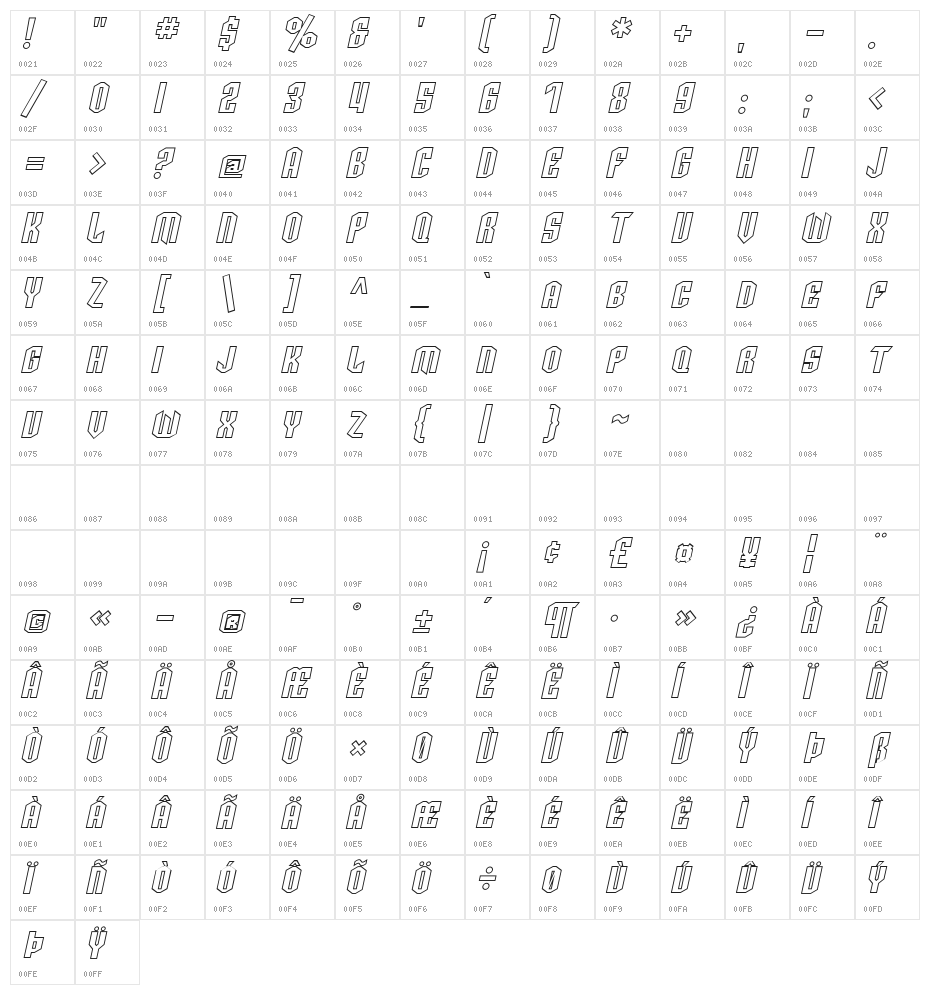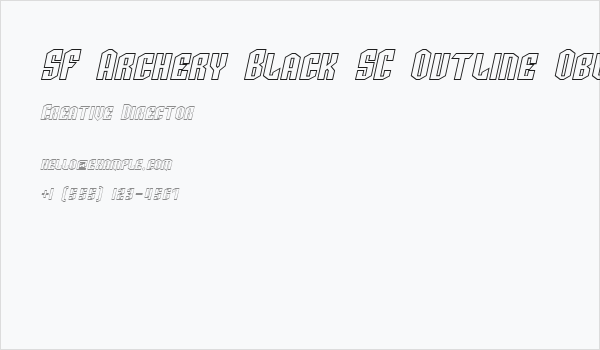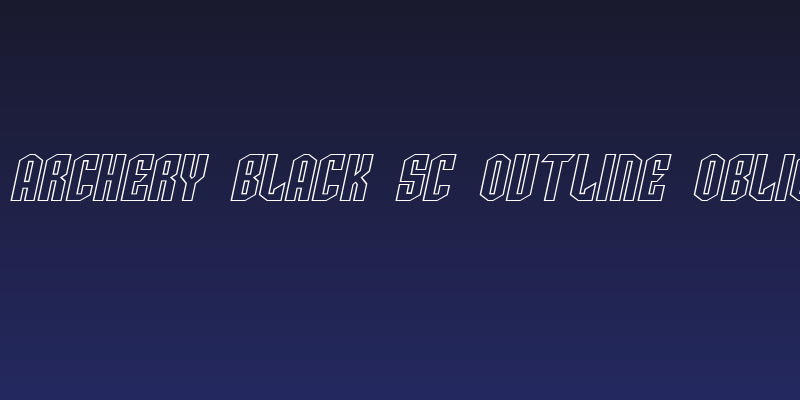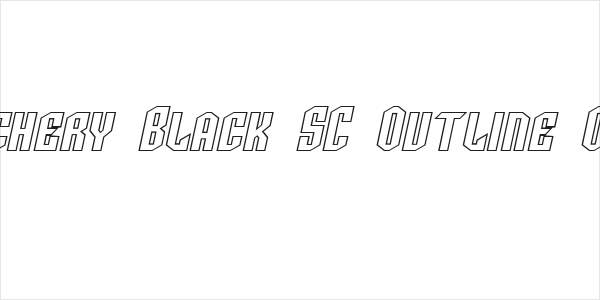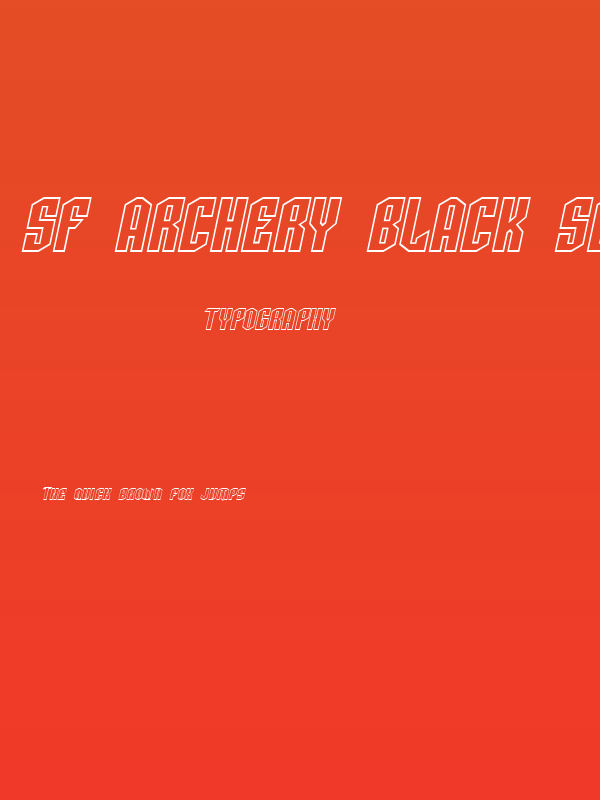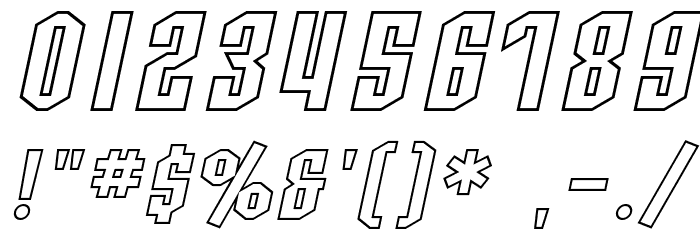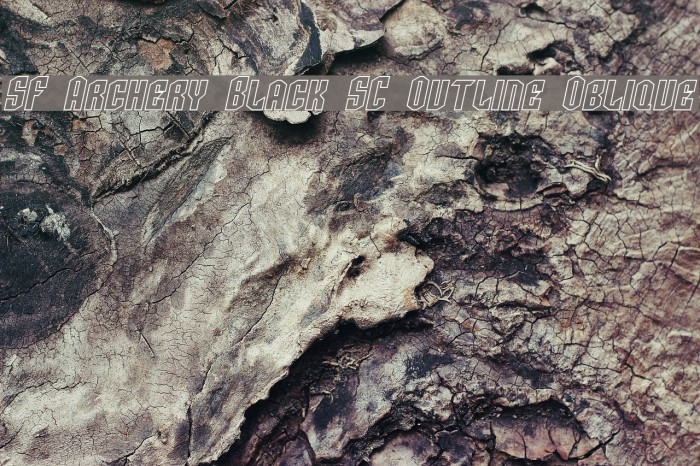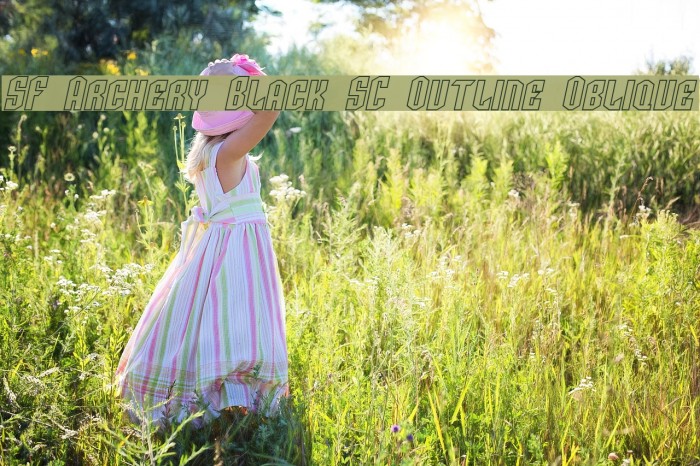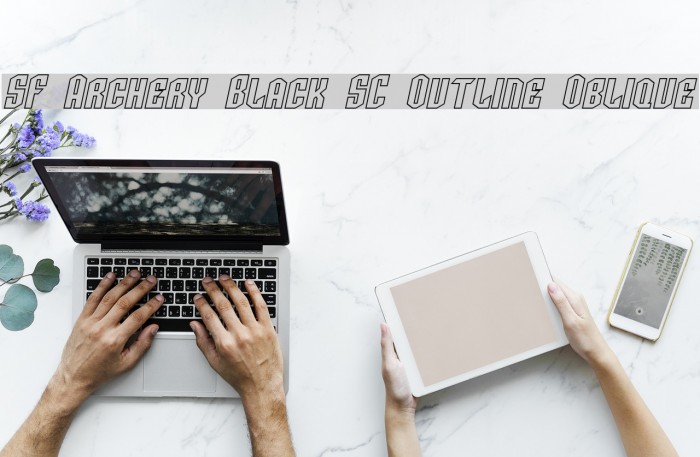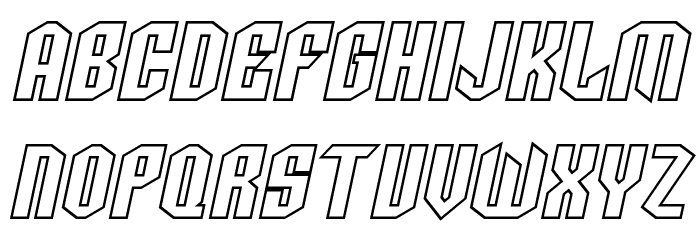
SF Archery Black SC Outline Oblique Font
SF Archery Black SC Outline Oblique Description
This font features a bold, outlined style with a distinct oblique slant, giving it a dynamic and modern appearance. The characters are uppercase and have a geometric, angular design that emphasizes sharp edges and clean lines. The outline effect creates a sense of depth and dimension, making it stand out in any design. The spacing between characters is relatively tight, which enhances the compact and cohesive look of the text. This font is ideal for creating impactful headlines or titles that require a strong visual presence. Its unique style makes it suitable for projects that aim to convey a sense of modernity and boldness.
| Proposed Projects | Ideal for headlines, posters, logos, and branding materials that require a modern and bold aesthetic. |